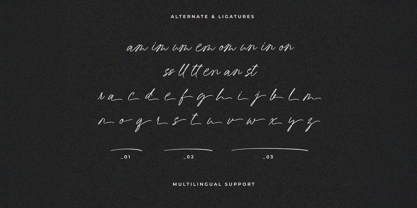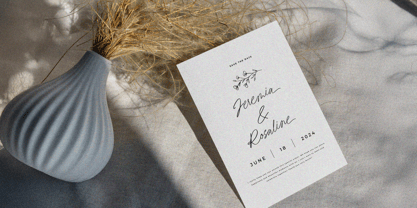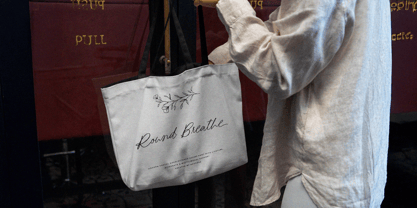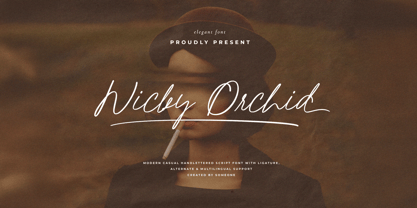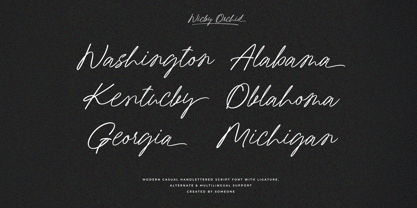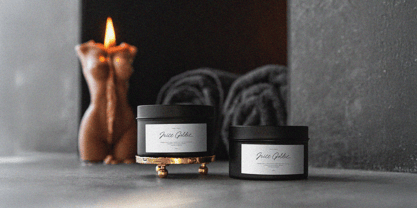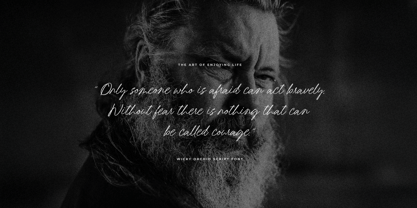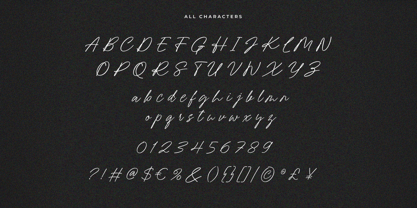
Wicky Orchid
by GraphTypika
The Wicky Orchid Font Family was designed by Dani Irawan and published by GraphTypika. Wicky Orchid contains 1 styles. More about this family
Dive into the world of expressive and elegant typography with Wicky Orchid - Script Handwriting Font.
This font isn't just a typeface; it's a brushstroke of personality for your creative projects. Wicky Orchid ensures seamless integration across various platforms and applications, allowing you to infuse your designs with a distinctive, handcrafted feel. The font's Alternate characters offer versatility, letting you experiment with different styles and tailor your text to suit the mood of your content.
Embrace global appeal with its Multilingual Support, enabling you to communicate your message across borders. Whether you're crafting invitations, branding materials, or adding flair to your website, Wicky Orchid is the artistic tool that adds a touch of sophistication and charm to your written expression.
Elevate your design game with Wicky Orchid, where every letter tells a story.